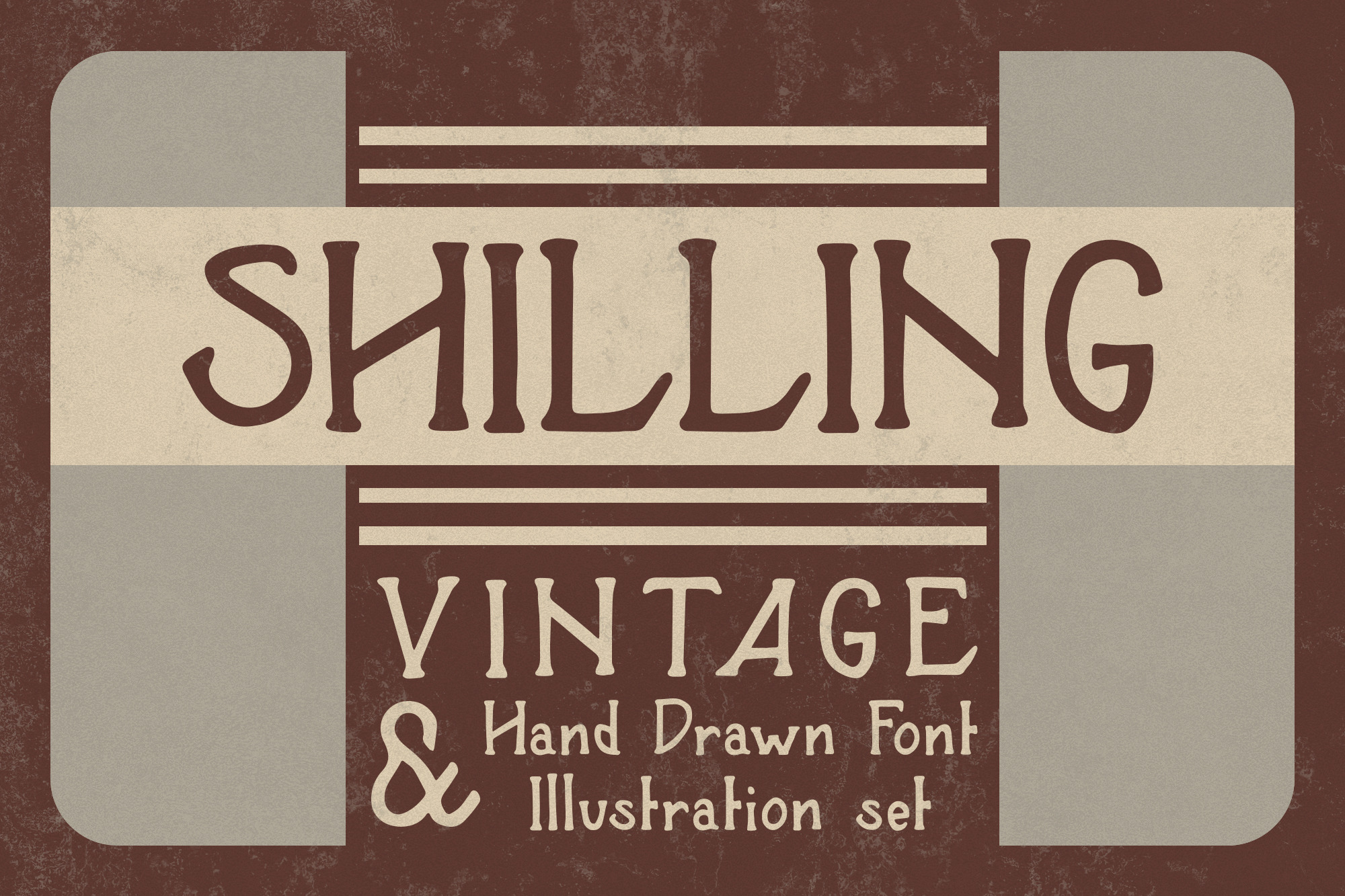
Shilling Font
Shilling is the first in a new series of authentic, hand drawn vintage fonts from Design Surplus. Inspired by vintage packaging and ad's from decades past, Shilling will add a touch of worldly knowledge to your artwork. There's also 40 hand drawn icons to sit perfectly with Shilling lettering.